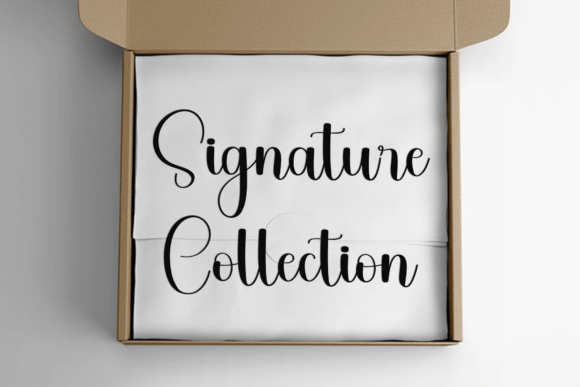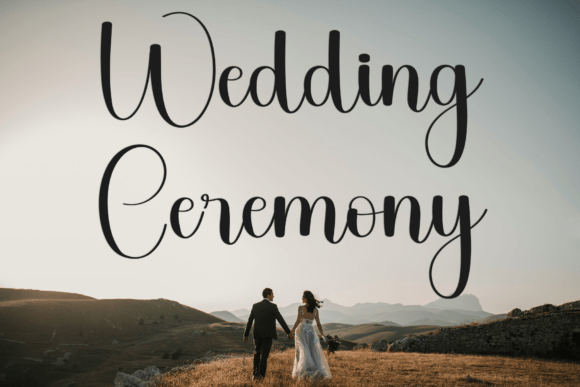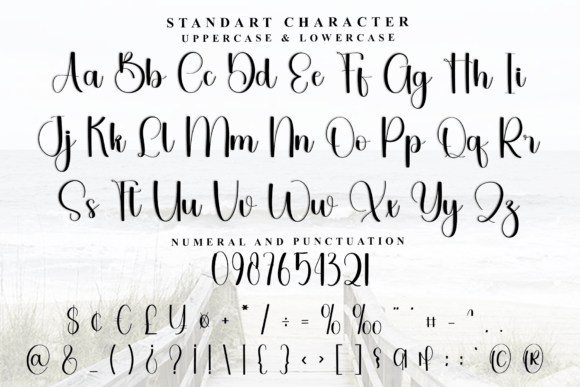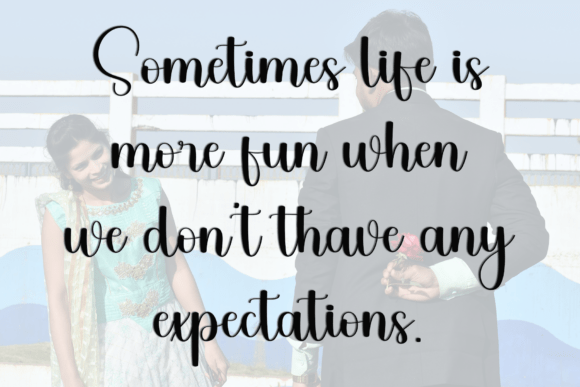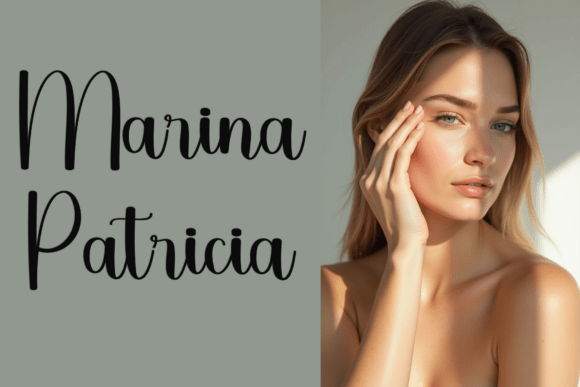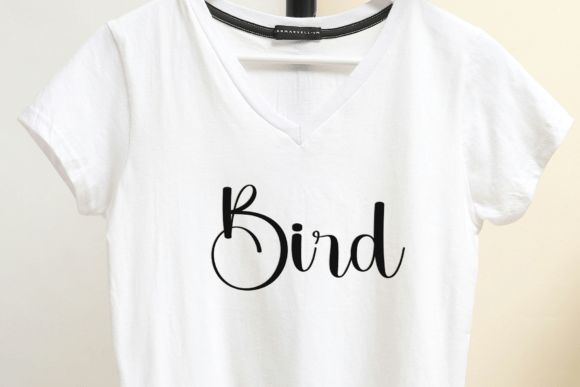
Introducing Beautica Font: The Ultimate Holiday Typeface
The holiday season is upon us, and what better way to get into the spirit than with a festive and merry typeface? Look no further than Beautica Font, a decorative and whimsical font that captures the magic of the holiday season. With its enchanting elements and nostalgic flair, Beautica Font is perfect for adding a touch of wonder to your designs, greeting cards, gift tags, and holiday-themed projects.
The Charm of Beautica Font
Beautica Font is a carefully crafted typeface that embodies the joy and cheer of the holiday season. Its decorative elements, including intricate swirls and flourishes, add a touch of elegance and sophistication to your designs. The font’s whimsical flair, on the other hand, injects a sense of playfulness and fun, making it perfect for creating festive and engaging content.
Whether you’re a designer, crafter, or DIY enthusiast, Beautica Font is the perfect addition to your holiday projects. Use it to create:
- Greeting cards that shine with festive cheer
- Gift tags that add a personal touch
- Holiday-themed projects that capture the spirit of the season
- Social media graphics that spread holiday cheer
Beautica Font is PUA (Private Use Area) encoded, which means you can access all of its amazing glyphs and ligatures with ease. This encoding allows you to:
- Insert special characters and symbols with just a few clicks
- Create beautiful and intricate designs without the need for complex software
- Focus on your creative vision, rather than getting bogged down in technical details
Bringing a Cheerful and Nostalgic Ambiance to Your Words
Beautica Font is more than just a typeface – it’s an experience. Its cheerful and nostalgic ambiance evokes memories of holidays past, and creates a sense of warmth and connection. With Beautica Font, you can:
- Add a touch of vintage charm to your designs
- Create a sense of continuity with holiday traditions past
- Make your content feel more personal and engaging
Tips for Using Beautica Font
To get the most out of Beautica Font, try the following tips:
- Pair Beautica Font with complementary fonts to create visual interest
- Experiment with different colors and textures to add depth and dimension
- Use Beautica Font to create custom illustrations and graphics